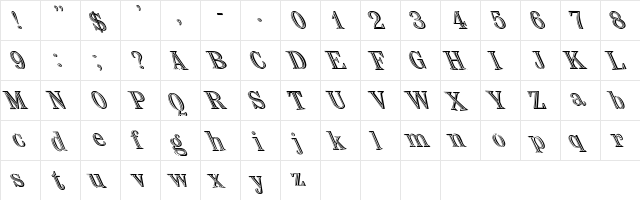
NauertLefti Plain Font Preview
NauertLefti Plain
Design Context for NauertLefti Typeface
NauertLefti is a composed and adaptable typeface that performs quietly and consistently across a wide range of design contexts.